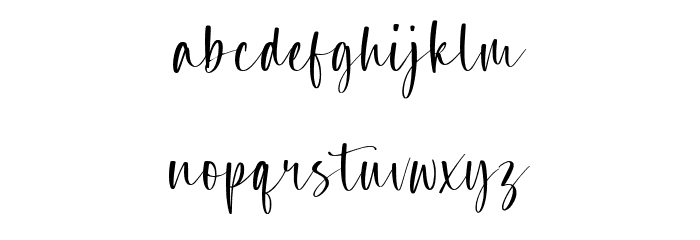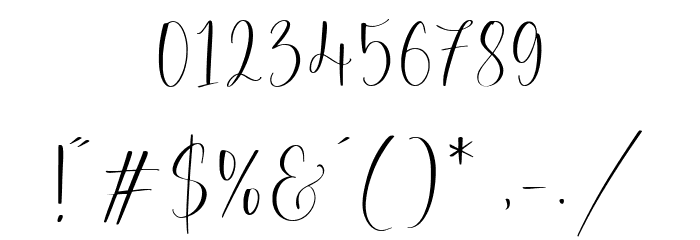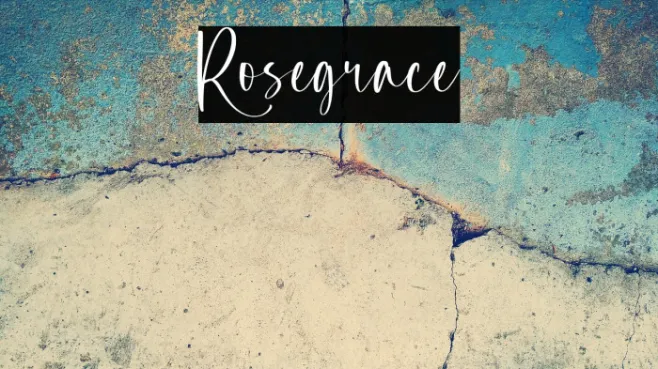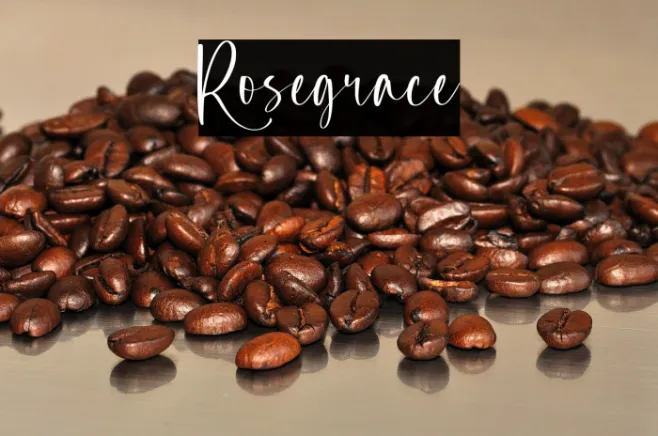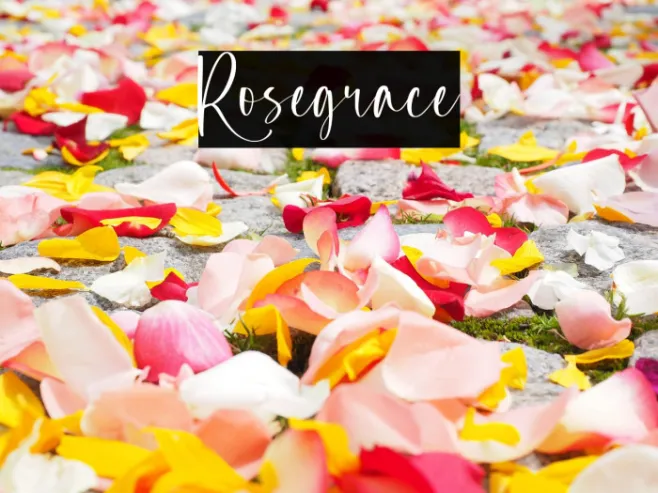
Rosegrace Font
This elegant script font features a flowing, cursive style with a modern twist. The uppercase letters are characterized by their tall, sweeping ascenders and descenders, giving them a graceful and sophisticated appearance. The lowercase letters maintain a consistent fluidity, with smooth curves and delicate loops that enhance the font's overall elegance. The numerals are designed to complement the letters, with a similar attention to detail and style. Special characters are included, maintaining the same aesthetic with a touch of flair. This font is perfect for projects that require a touch of class and sophistication.
A modern, elegant script font with flowing, cursive letters and graceful curves.
- Proposed Projects: Ideal for wedding invitations, elegant branding, personal signatures, and upscale product packaging.
- Use Case: Logos, Invitations, Branding